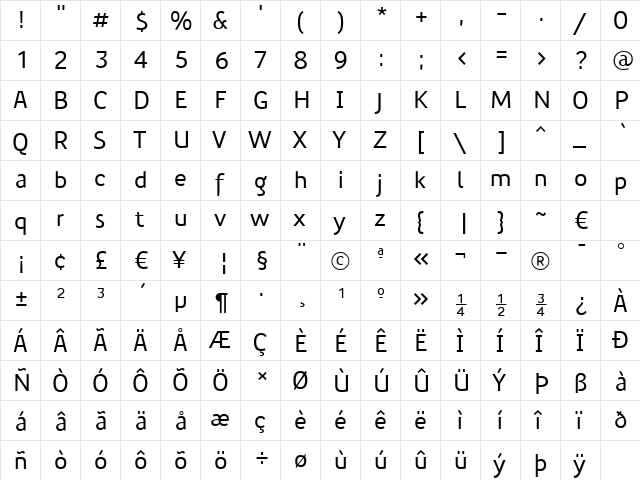
PreciousSansMedium Regular Font Preview
PreciousSansMedium Regular
PreciousSansMedium Regular Font Details
Design Context for PreciousSansMedium Typeface
PreciousSansMedium is a composed and adaptable typeface that performs quietly and consistently across a wide range of design contexts.
Pro Tip: Pair PreciousSansMedium with a font of contrasting weight or personality to build a more expressive typographic hierarchy.